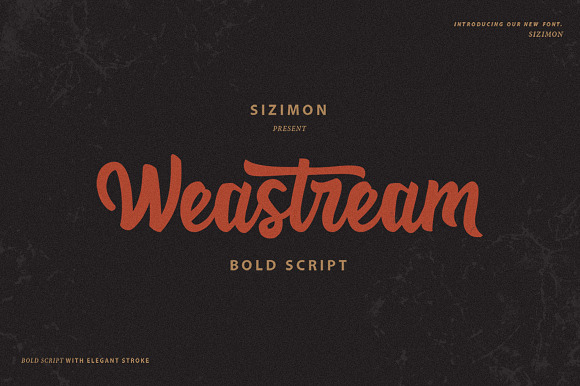
Weastream Font!
Weastream Font! by sizimon is a font selected for branding, posters, packaging, typography.
Why Weastream Font! is worth a look
Weastream Font! by sizimon fits naturally into Branding, posters, packaging, typography.